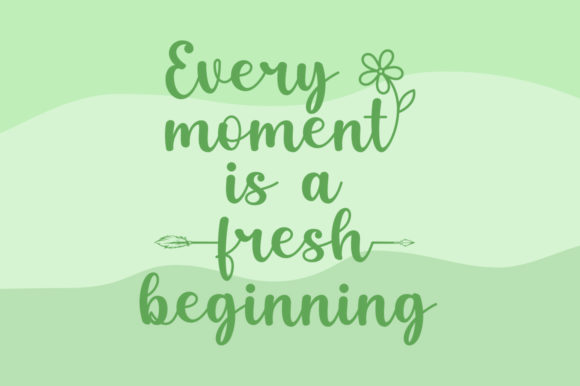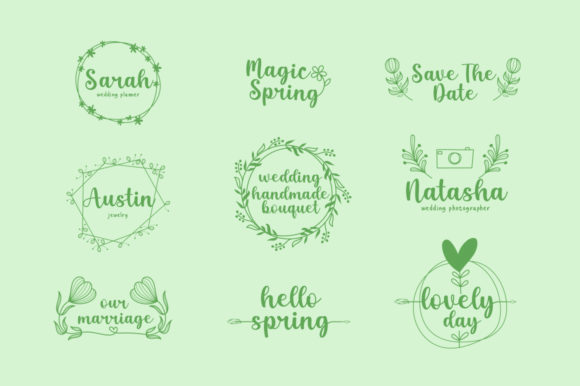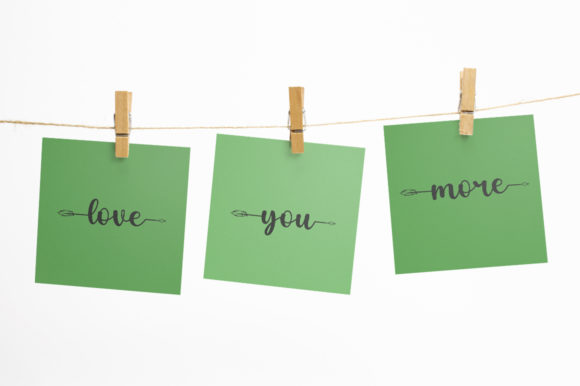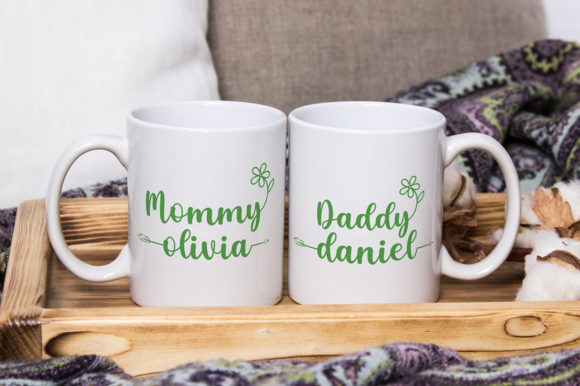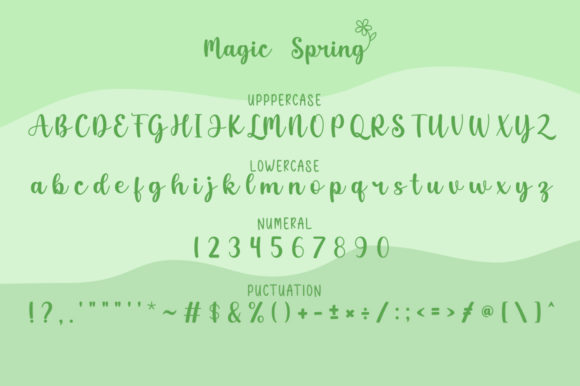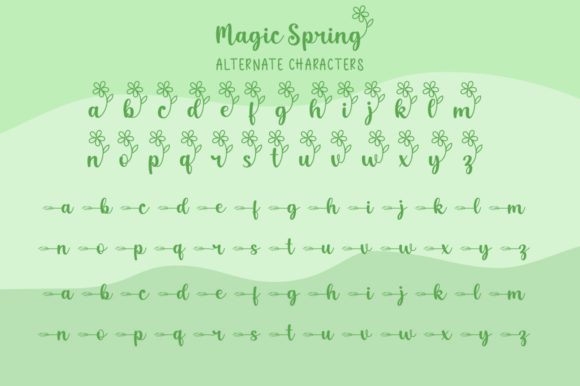
Introduction to Magic Spring Font
As a designer, there’s nothing quite like the thrill of a new creative project. You’re brainstorming ideas, experimenting with different styles, and searching for the perfect design resource to bring your vision to life. And then, you stumble upon it – a font that’s not just visually appealing, but also has a unique touch that sets your designs apart. For me, that font is the Magic Spring Font.
This elegant handwritten font has a lovely touch of character that’s perfect for a wide variety of designs. Whether you’re working on a high-quality brochure, a website with a transparent background, or a social media campaign, the Magic Spring Font is sure to add a touch of sophistication and creativity to your work. And with its PUA encoding, you can access all of the glyphs, giving you even more flexibility and freedom to design.
Key Features of Magic Spring Font
- High-quality design resource for creative projects, ideal for digital artwork and print materials.
- Unique and visually appealing design, perfect for adding a touch of magic to your work, with a transparent background for easy layering and composition.
- Supports multiple languages and is suitable for use in a wide range of creative projects, from branding and marketing materials to editorial and educational content.
- Designed to be highly legible, even at small font sizes, making it an excellent choice for body text and headings in your creative project.
Honest Review: Magic Spring Font
As a designer, I’m always on the lookout for high-quality design resources that can elevate my creative projects. The Magic Spring Font is a great addition to any design library, and I’m excited to share my honest review.
What works well: ✨ The Magic Spring Font has a unique and whimsical style that’s perfect for adding a touch of magic to your designs. The font is highly customizable, making it easy to adjust the size, color, and spacing to fit your project’s needs. I also appreciate the transparent background option, which makes it easy to overlay the font on top of images or other design elements.
- High-quality design resource perfect for creative projects
- Unique and whimsical style that adds a touch of magic
- Highly customizable with options for size, color, and spacing
- Transparent background option for easy overlay
What doesn’t work well: ⚠️ While the Magic Spring Font is a great addition to any design library, it may not be suitable for formal or professional projects. The font’s whimsical style may come across as unprofessional in certain contexts.
Overall impression: The Magic Spring Font is a great resource for designers looking to add a touch of magic to their creative projects. With its high-quality design and customizable options, it’s a must-have for any design library. And the best part? It’s a free download, making it an accessible resource for designers of all levels.
Tips for Getting the Most Out of Magic Spring Font
Use Magic Spring Font in combination with other high-quality design resources to create a cohesive and visually appealing design. Experiment with different font sizes, colors, and styles to find the perfect look for your project.
Magic Spring Font is perfect for any creative project, including logos, brochures, business cards, and social media graphics. Its high-quality design and transparent background make it easy to use in any design software, including Canva, Adobe Photoshop/Illustrator, and PowerPoint/Word.